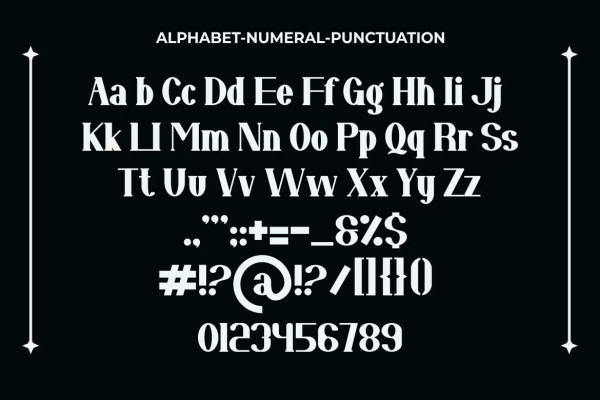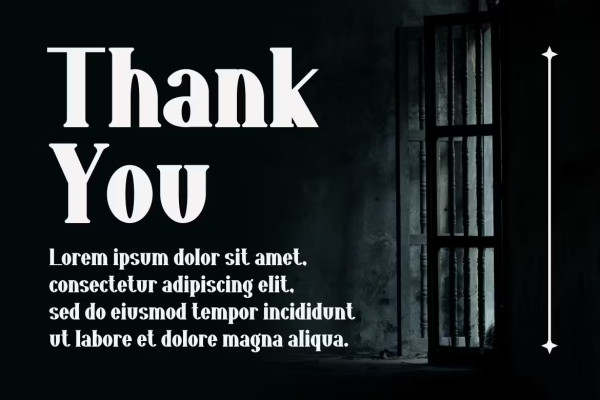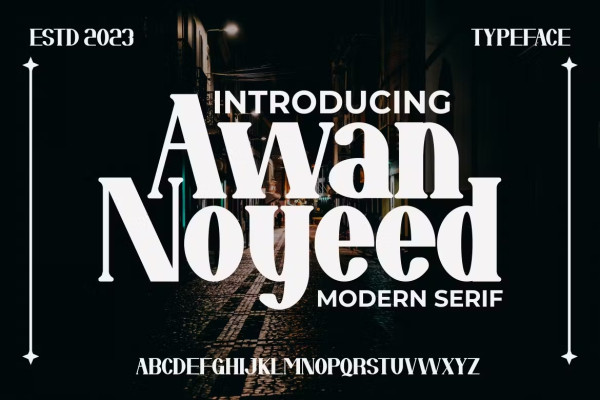
Awan Noyeed Font
Awan Noyeed Font – Modern Font is a bold and authentic display font. The font is suitable for any branding project like logo, t-shirt print, e-sport, etc. She stands out in a wide range of contexts.